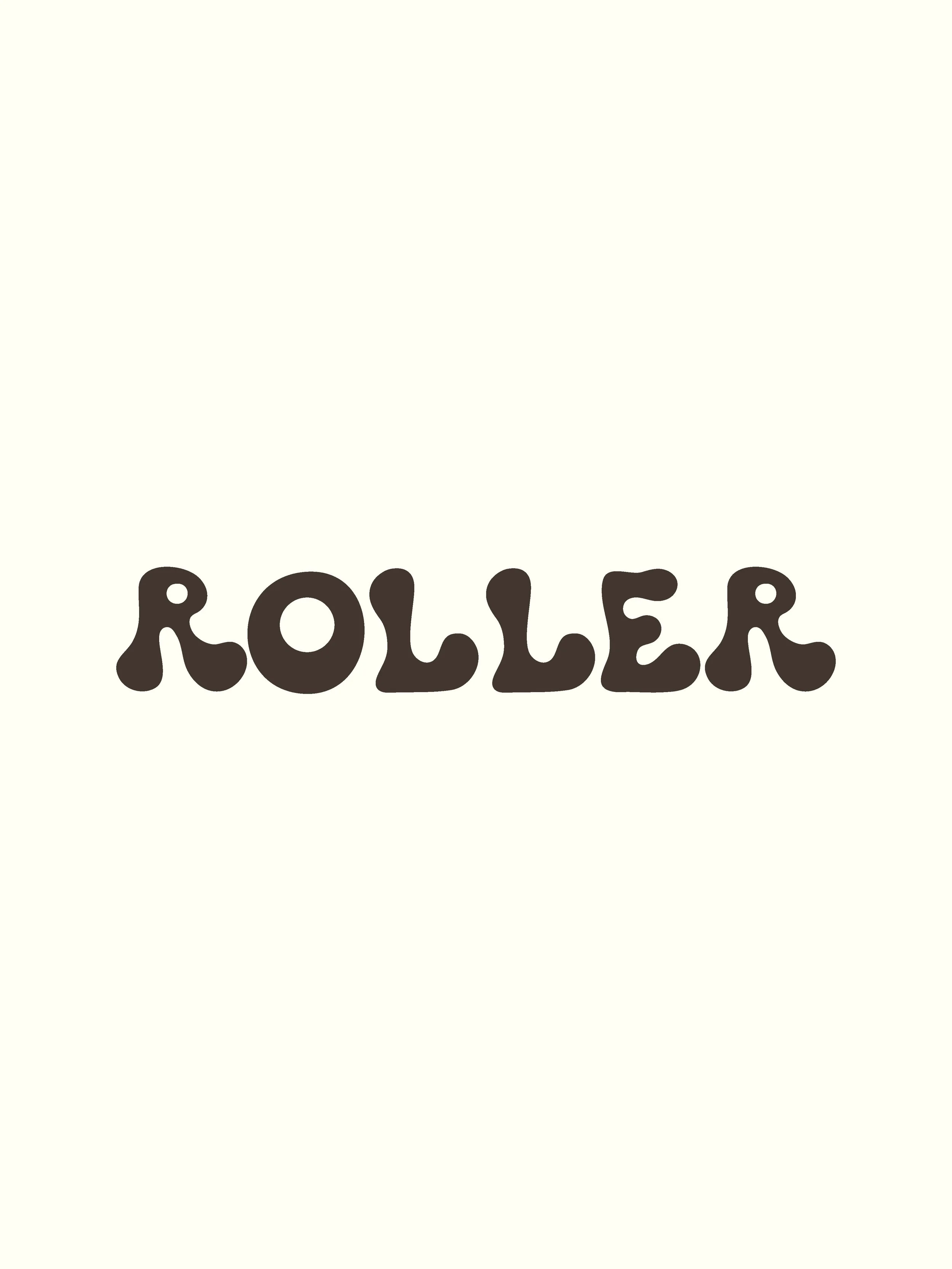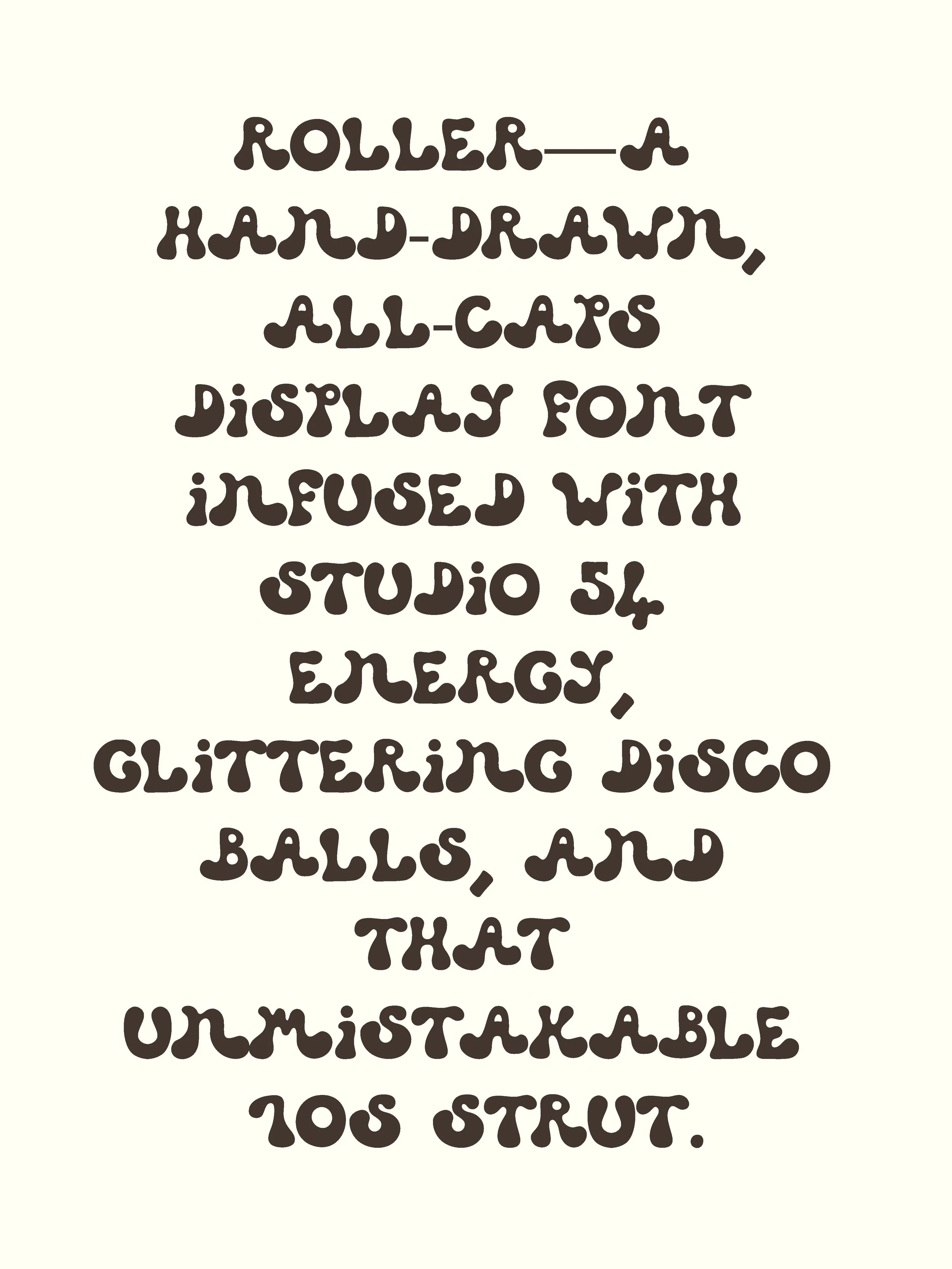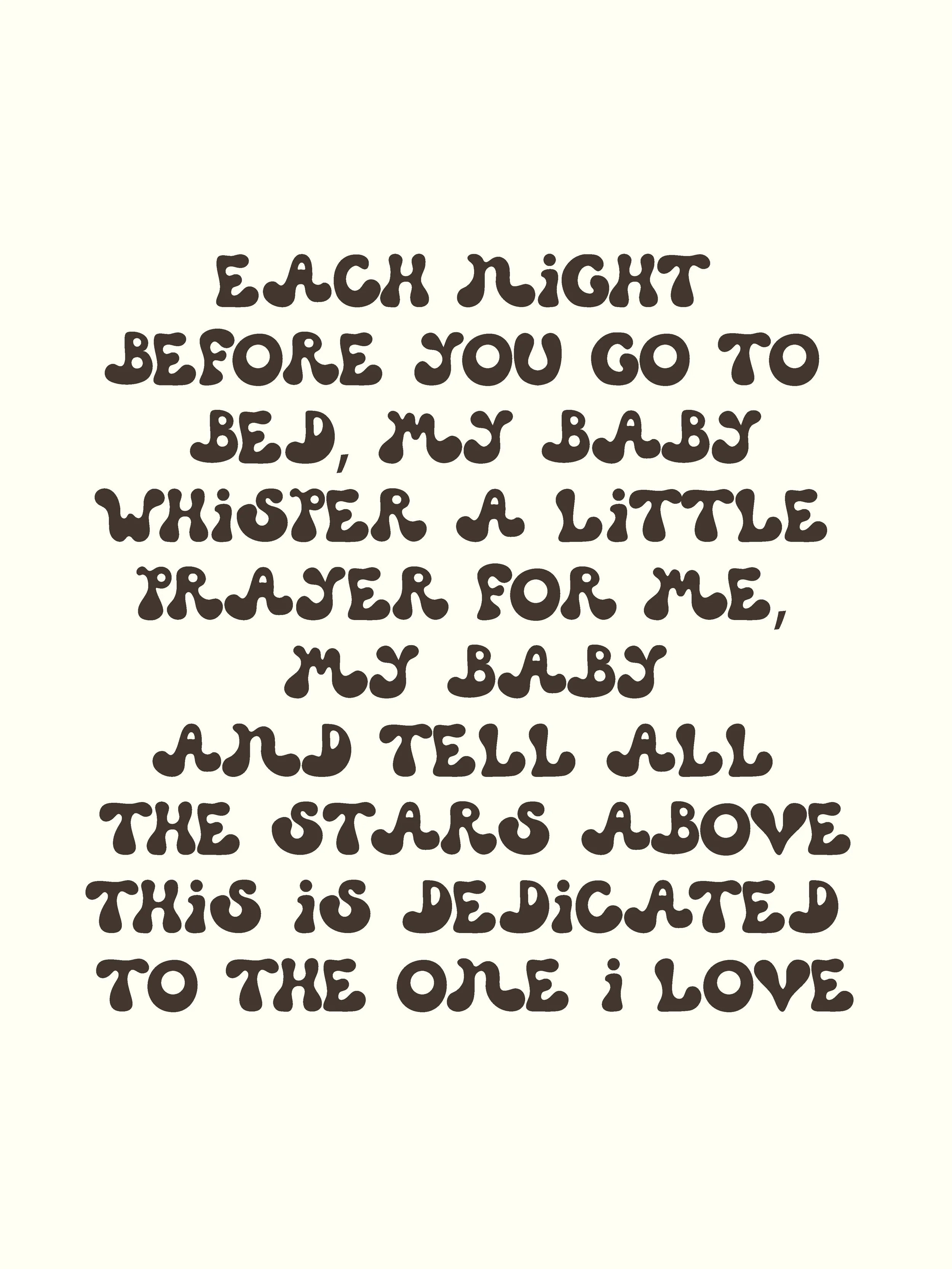
Roller | Hand Drawn Font
Roller is a disco drenched is a hand-drawn display font inspired by the fun, energy, and color of late-70s roller rinks. Think polished floors, mirrored walls, and neon lights — captured in a typeface that’s playful, bold, and slightly imperfect in all the right ways.
This all-caps font has subtle hand-drawn quirks that bring character and movement to your designs, making it perfect for projects that want a retro, vintage-inspired edge without feeling overdone.
Ideal for:
Event graphics and retro-themed flyers
Music posters and album artwork
Merchandise, branding, and packaging
Any project needing personality and a touch of playful nostalgia
Roller adds a warm, approachable energy to your designs — fun, retro, and ready to move.